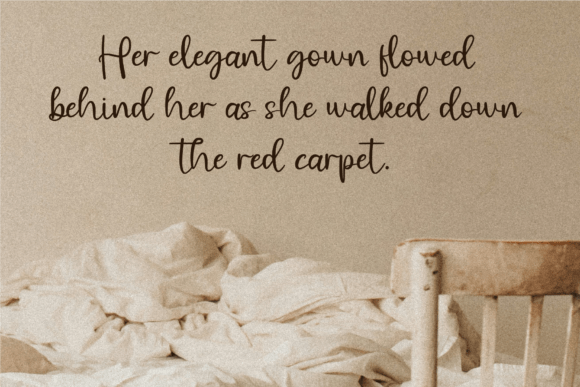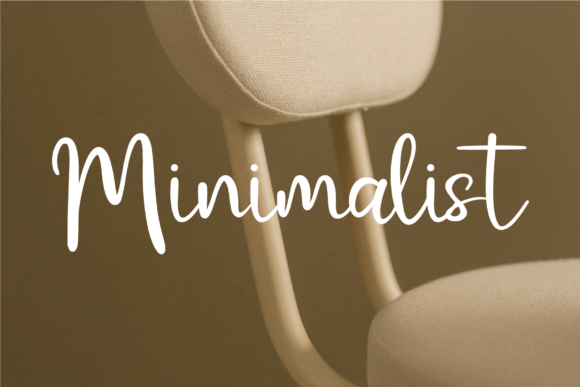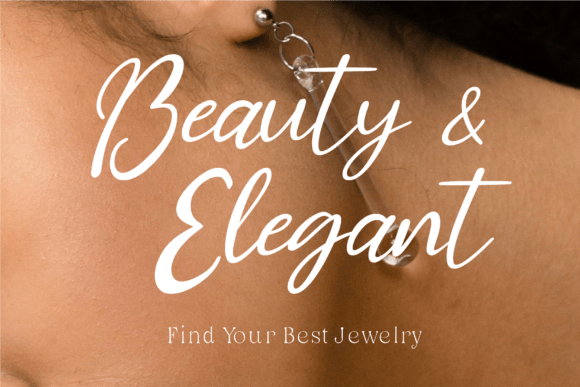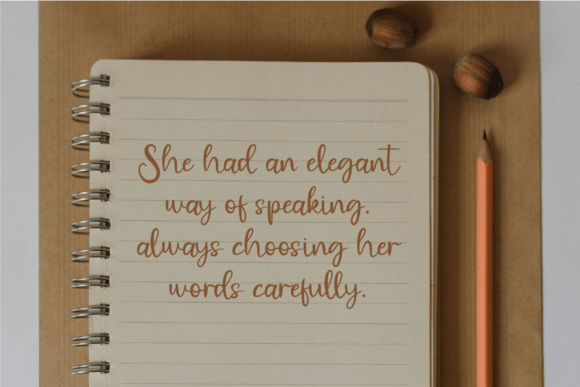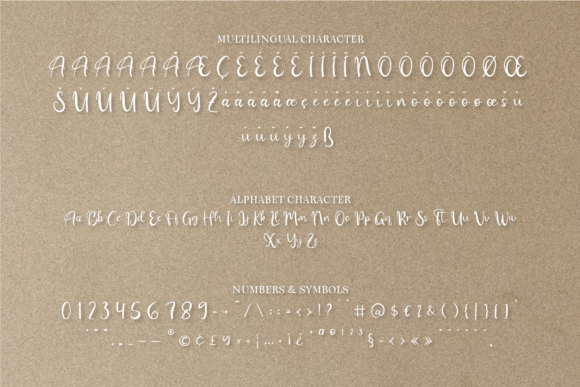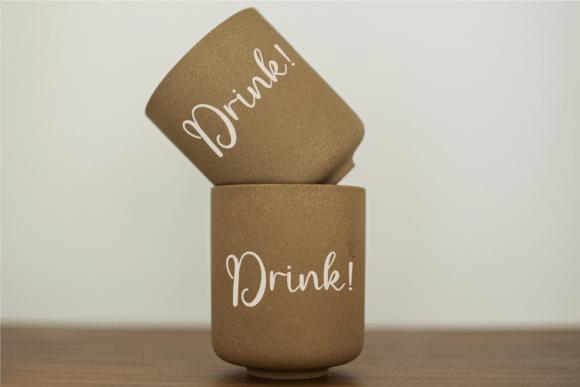
Elegantique Scrypta Font – A Timeless & Natural Handwritten Script
Step into the world of elegance with Elegantique Scrypta, a refined handwritten script that blends grace, sophistication, and natural beauty. With its fluid strokes, delicate curves, and organic flow, this font captures the charm of traditional calligraphy while remaining effortlessly modern. Designed for those who appreciate luxury and artistry, Elegantique Scrypta is the perfect choice for wedding invitations, branding, editorial design, fashion labels, and upscale packaging.
The Essence of Elegance
Elegantique Scrypta is more than just a font – it’s an experience. Its well-balanced letterforms and stylish flourishes create a sense of exclusivity, making every word feel personal and exquisite. The font’s design is inspired by classic calligraphy, but with a modern twist that sets it apart from traditional scripts. Whether you’re looking to create a luxurious brand identity or a beautiful wedding invitation, Elegantique Scrypta is the perfect choice.
Why Choose Elegantique Scrypta?
- Elegance in Every Stroke: Inspired by classic calligraphy with a modern touch, Elegantique Scrypta is the epitome of elegance. Its fluid strokes and delicate curves create a sense of sophistication that’s hard to find in other fonts.
- Naturally Handwritten: Elegantique Scrypta is an organic and authentic font that looks like it was written by hand with care. Its natural flow and imperfections make it feel personal and unique.
- Versatile & Stylish: This font is perfect for luxury branding, invitations, logos, and social media. Its versatility makes it a great choice for designers who want to create a cohesive brand identity across multiple platforms.
- Refined & Readable: Despite its elegant design, Elegantique Scrypta is highly readable, making it perfect for body text and headlines. Its refined letterforms ensure that your message is conveyed with clarity and style.
Perfect for Luxury Design Projects
Elegantique Scrypta is designed for designers and crafters who want to create luxurious and sophisticated designs. Here are some of the perfect use cases for this elegant font:
- Wedding Invitations: Create beautiful and elegant wedding invitations that set the tone for a luxurious and memorable event.
- Branding: Establish a luxurious brand identity with Elegantique Scrypta. Its elegant design makes it perfect for high-end brands who want to convey sophistication and exclusivity.
- Editorial Design: Use Elegantique Scrypta to create stunning editorial designs that showcase your writing style and creativity.
- Fashion Labels: Elevate your fashion brand with Elegantique Scrypta. Its luxurious design makes it perfect for high-end fashion labels who want to convey exclusivity and sophistication.
- Upscale Packaging: Create luxurious packaging designs that stand out from the crowd. Elegantique Scrypta is the perfect choice for designers who want to create high-end packaging designs that convey luxury and exclusivity.
Tips for Using Elegantique Scrypta
Here are some tips for using Elegantique Scrypta in your design projects:
- Pair it with a Sans-Serif Font: Pair Elegantique Scrypta with a sans-serif font to create a beautiful contrast between elegance and simplicity.
- Use it for Headlines and Titles: Use Elegantique Scrypta for headlines and titles to create a luxurious and sophisticated look.
- Experiment with Ligatures: Elegantique Scrypta comes with ligatures that can add an extra touch of elegance to your designs. Experiment with different ligatures to find the one that works best for your project.
| Font Name | Elegantique Scrypta Font |
Elegantique Scrypta is a timeless and natural handwritten script that captures the essence of elegance and sophistication. Its fluid strokes, delicate curves, and organic flow make it perfect for luxury design projects. Whether you’re a designer or crafter, Elegantique Scrypta is the perfect choice for creating beautiful and luxurious designs. With its versatility, readability, and elegance, this font is sure to elevate your designs to the next level.